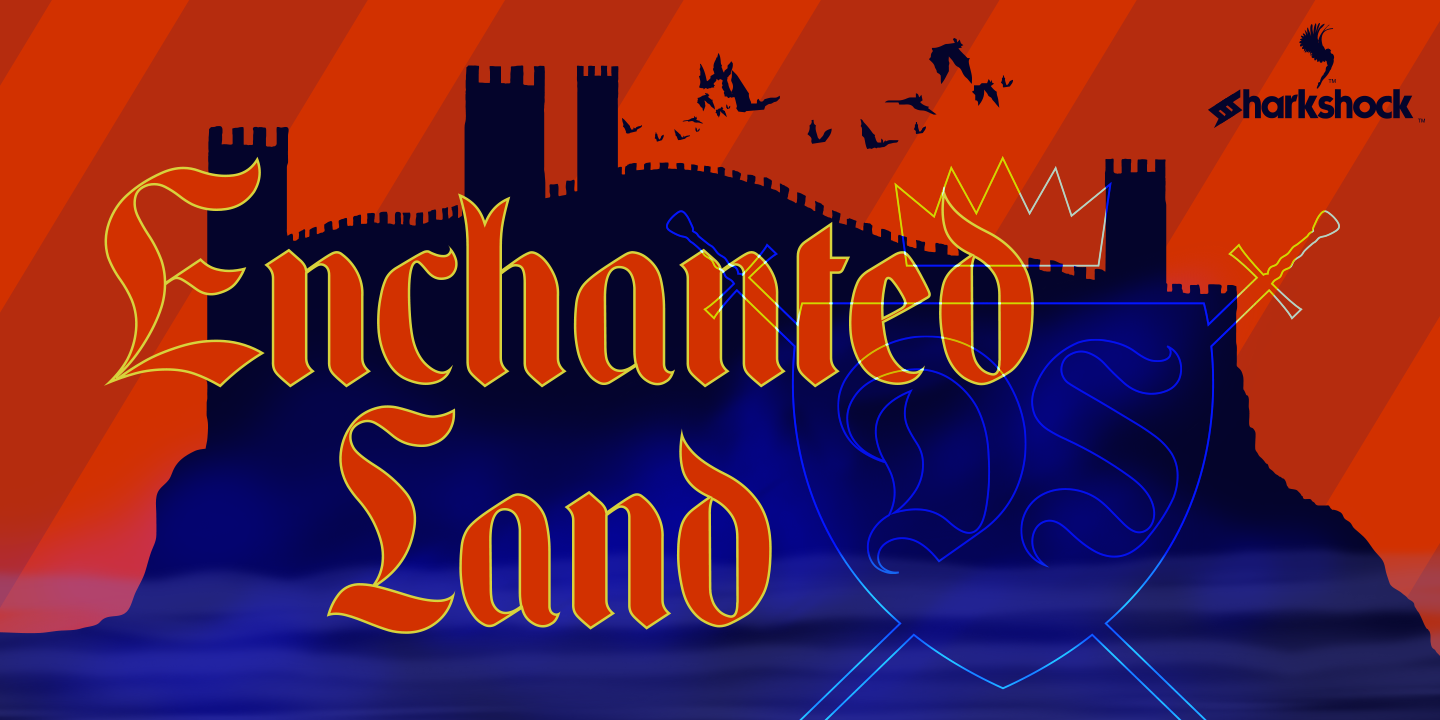
If you're looking for a whimsical and magical typeface to elevate your creative projects, the Enchanted Land DS Font Free Download is the perfect choice. This enchanting font features elegant, fairy-tale-inspired lettering that adds a touch of fantasy to invitations, logos, branding, and more. Its unique design makes it ideal for themed parties, children’s books, and any project that requires a dreamy, storybook aesthetic.
The Enchanted Land DS Font Free Download offers excellent readability while maintaining its artistic charm. Whether you're designing a wedding invitation, a fantasy game, or a mystical book cover, this font will help you create a captivating visual experience. Its versatility allows it to pair well with both modern and vintage designs, making it a must-have for designers seeking a magical touch.